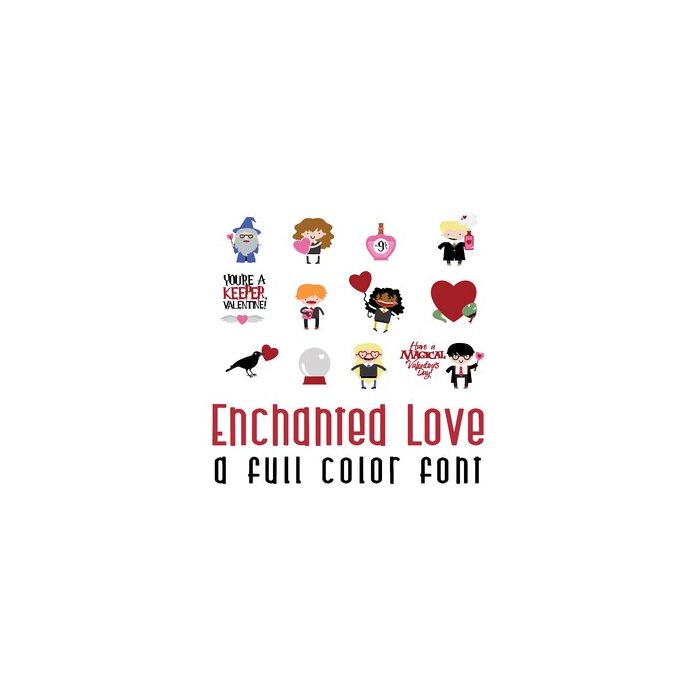
This adorable full-color doodlebat font features 35 fun enchanted characters and sayings perfect for Valentine's Day. Perfect for cards, crafts, gifts, decor, scrapbook pages, planner stickers, and more! Glyphs are A-Z and 0-9.